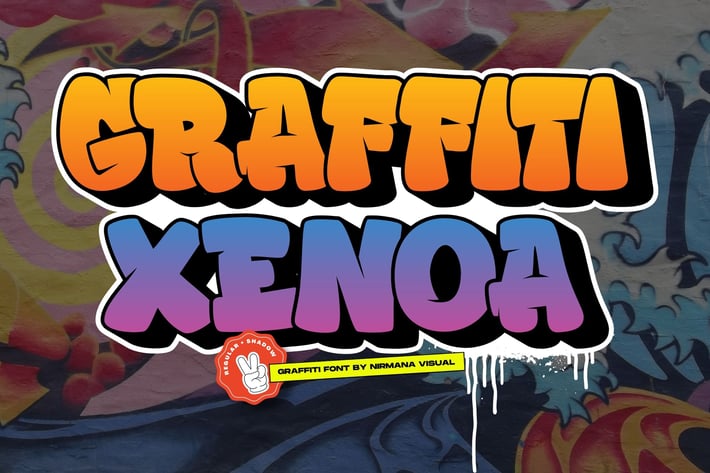
Graffiti Xenoa - Graffiti Font
Introducing Graffiti Xenoa
Inspired by Graffiti style Design, with 2 Style : Regular & Shadow
Graffiti Xenoa offers beautiful typographic harmony for a diversity of design projects, including logos & branding, social media posts, advertisements & product designs.